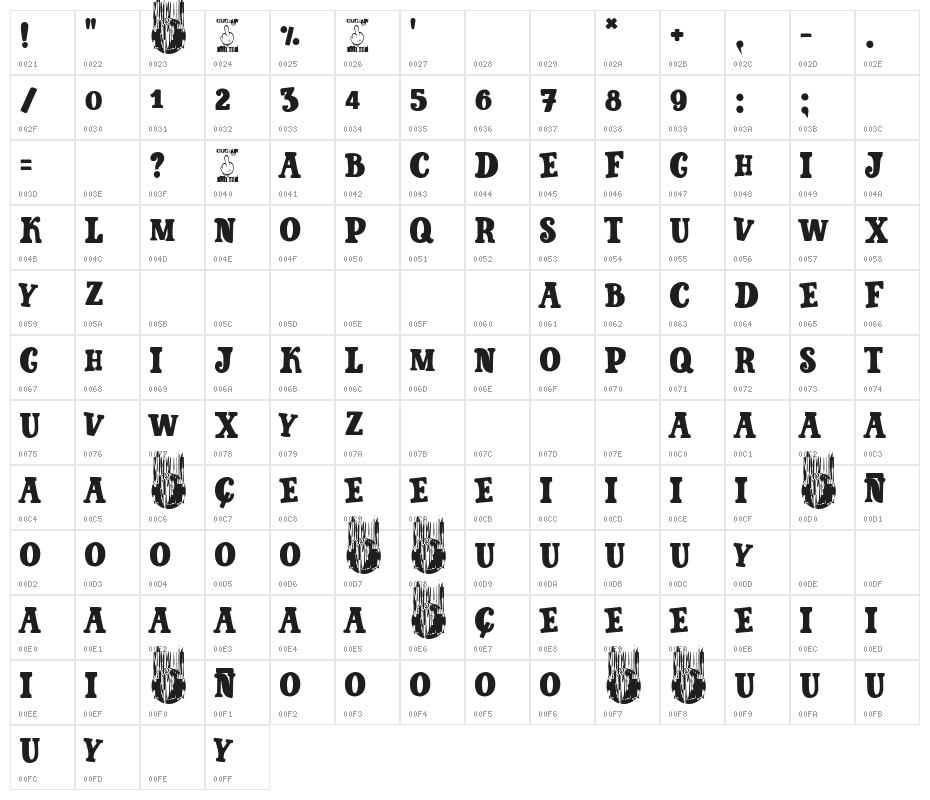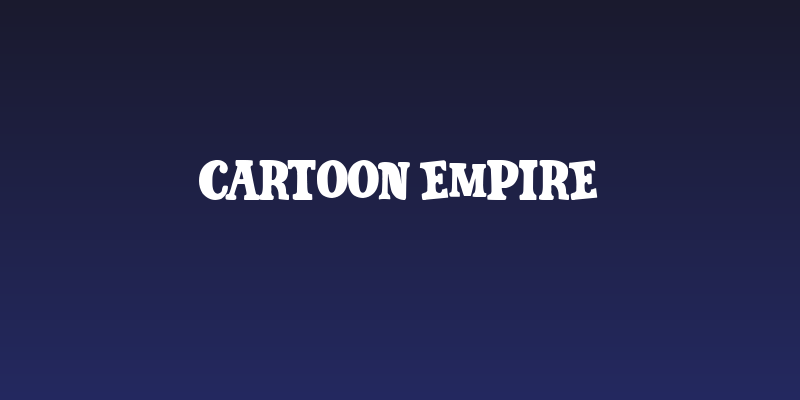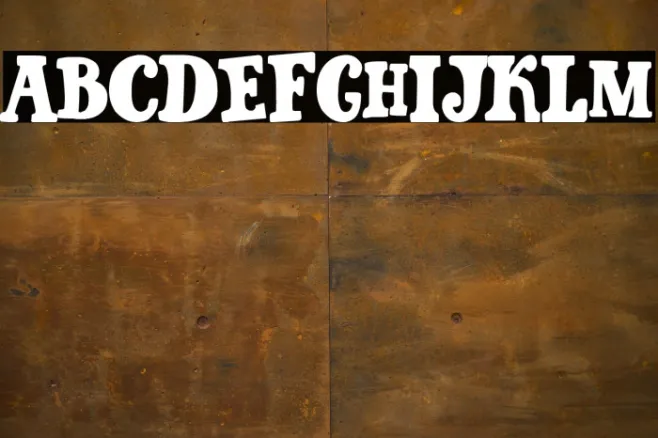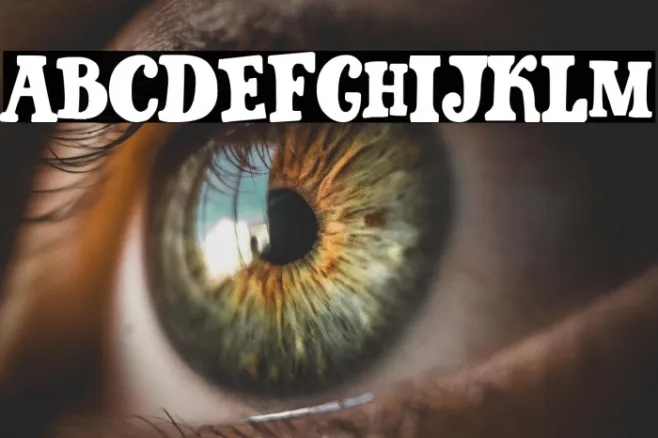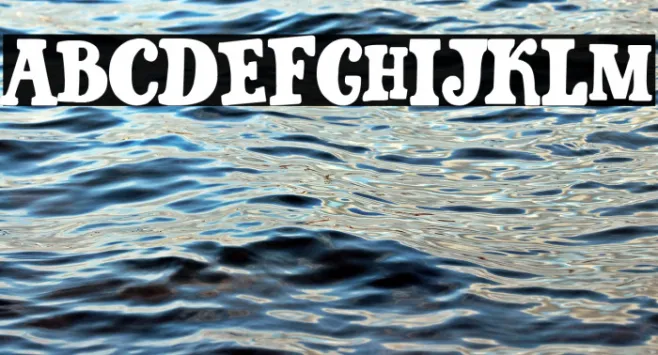
Cartoon Empire Font
Cartoon Empire Description
This font features bold, playful characters with a cartoonish flair, making it ideal for projects that require a fun and lively aesthetic. The letters are thick and rounded, giving them a friendly and approachable appearance. The exaggerated serifs and curves add a whimsical touch, while the consistent stroke width ensures readability. This font is perfect for capturing attention and conveying a sense of humor or creativity. It includes a full set of uppercase and lowercase letters, numbers, and a variety of special characters, making it versatile for different design needs.
| Overall Style | Playful, Cartoonish, Whimsical |
| Proposed Projects | Ideal for children's books, comic strips, playful branding, and eye-catching posters. |